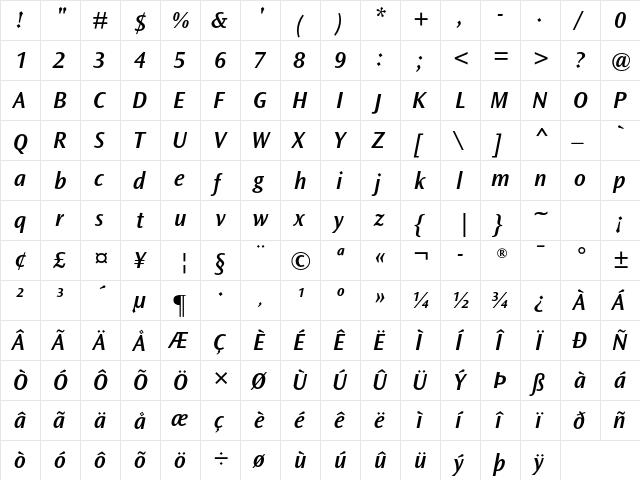
Ocean Sans Std Semibold Italic
| Designer | Chong Wah |
Design Context for Ocean Sans Std Typeface
Ocean Sans Std is a composed and adaptable typeface that performs quietly and consistently across a wide range of design contexts. Its italic angle brings a sense of urgency and motion to the letterforms. The heavy weight commands attention and anchors typographic hierarchies.
Pro Tip: Use Ocean Sans Std for emphasis, pull quotes, and subheadings where its slanted energy can add rhythm to the layout.